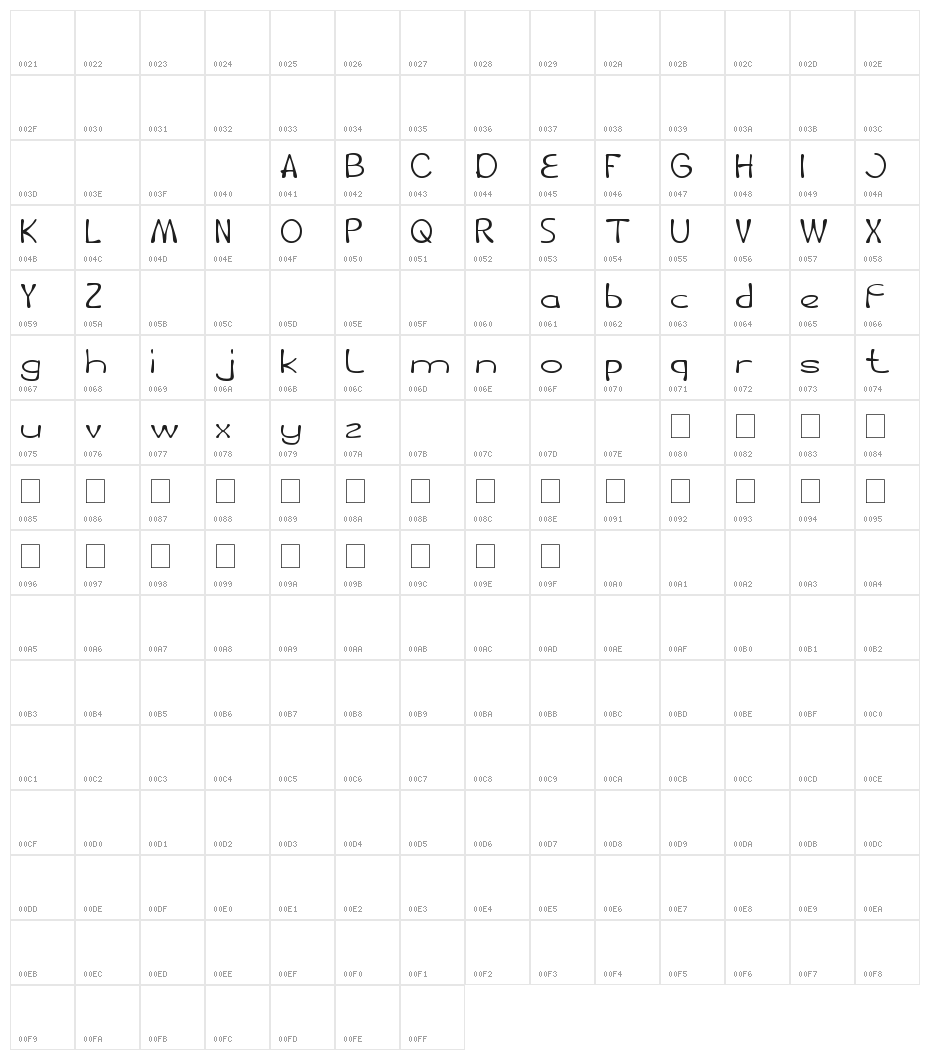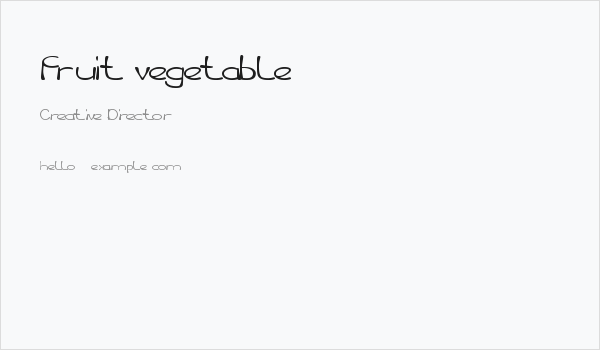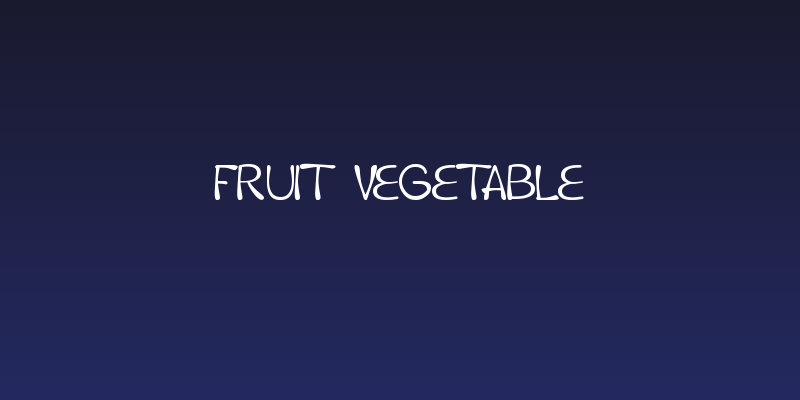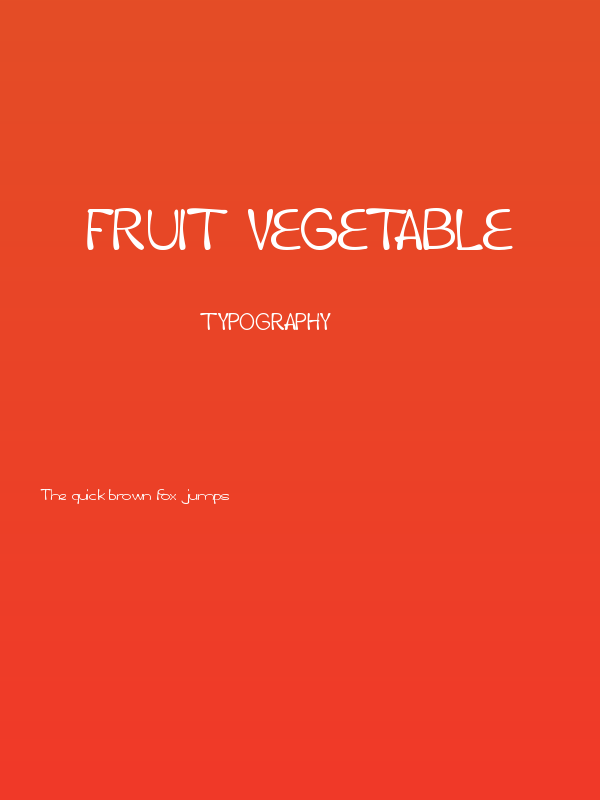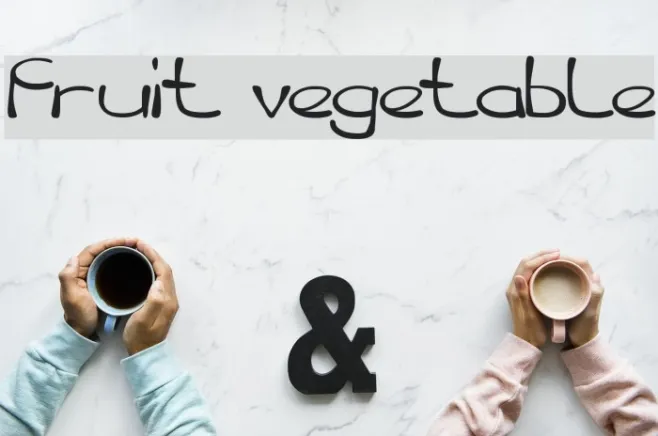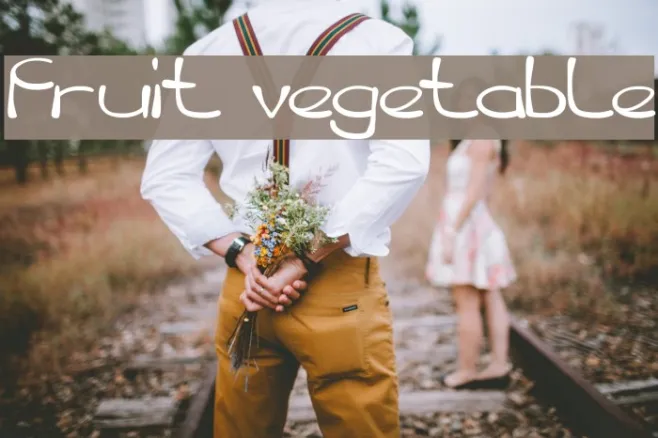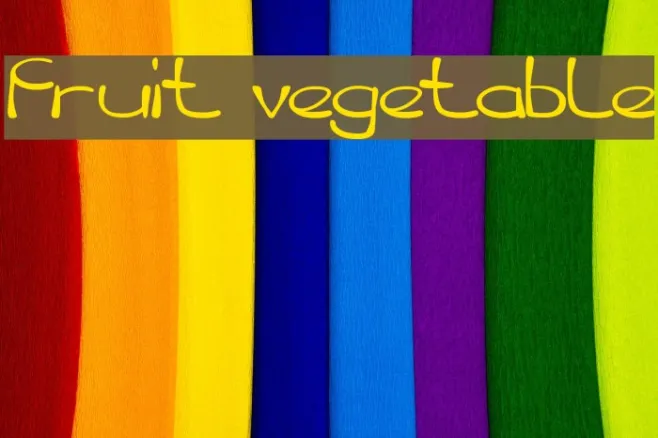
fruit vegetable Font
fruit vegetable Description
This playful and whimsical font features a unique, hand-drawn style with rounded edges and a slightly irregular form. The characters exhibit a casual and friendly appearance, with a consistent stroke width that gives it a cohesive look. The uppercase letters are bold and prominent, while the lowercase letters maintain a similar width, providing a harmonious balance. The font's quirky nature is highlighted by its distinctive character shapes, such as the looped 'g' and the elongated 'j'. This font is perfect for projects that require a fun and approachable aesthetic.
| Overall Style | Whimsical |
| Proposed Projects | Ideal for children's books, playful branding, greeting cards, and casual invitations. |